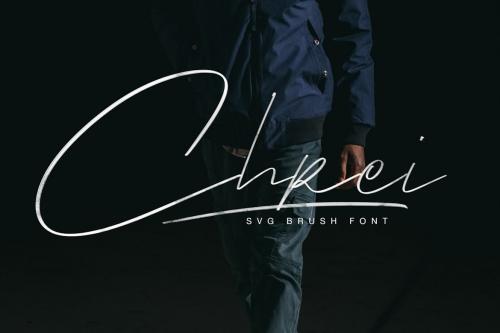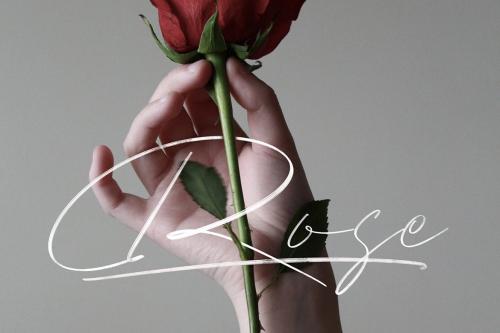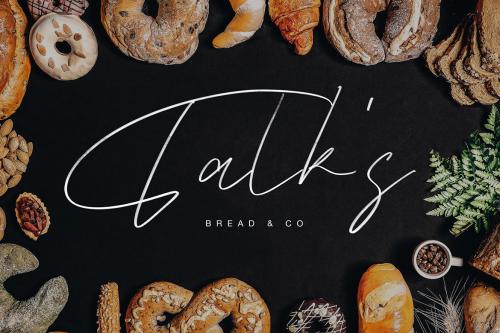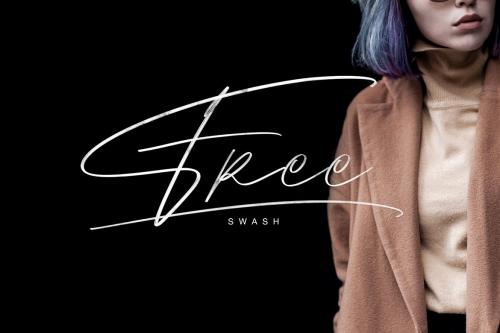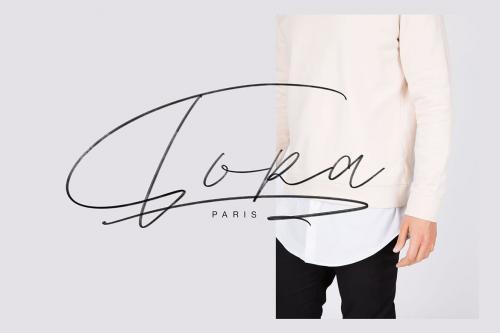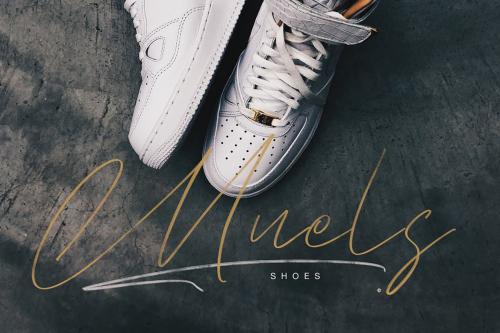
克里斯SVG笔刷字体
Chrei SVG Brush Font
Give your designs an authentic brush handcrafted feel. "Chrei SVG Brush Font" is perfectly suited to signature, stationery, logo, typography quotes, magazine or book cover, website header, flyer, clothing, branding, packaging design and more.